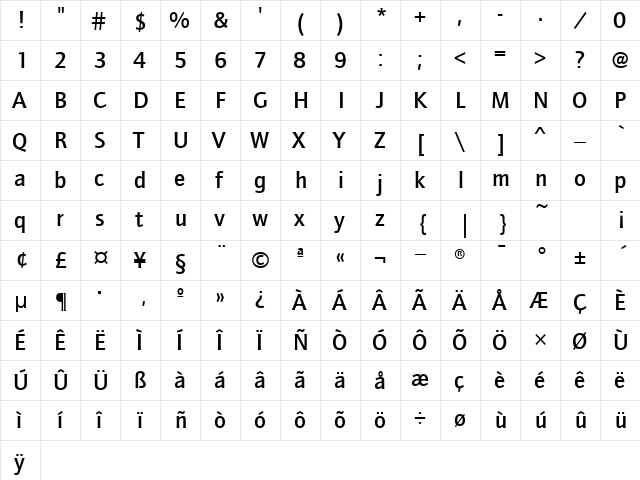
QuaySansMdITCTT Regular
| Foundry | International Typeface Corporation |
| Designer | David Quay |
Design Context for QuaySansMdITCTT Typeface
QuaySansMdITCTT takes a measured approach to typography — its balanced proportions and neutral character make it a reliable workhorse for both digital and print work.